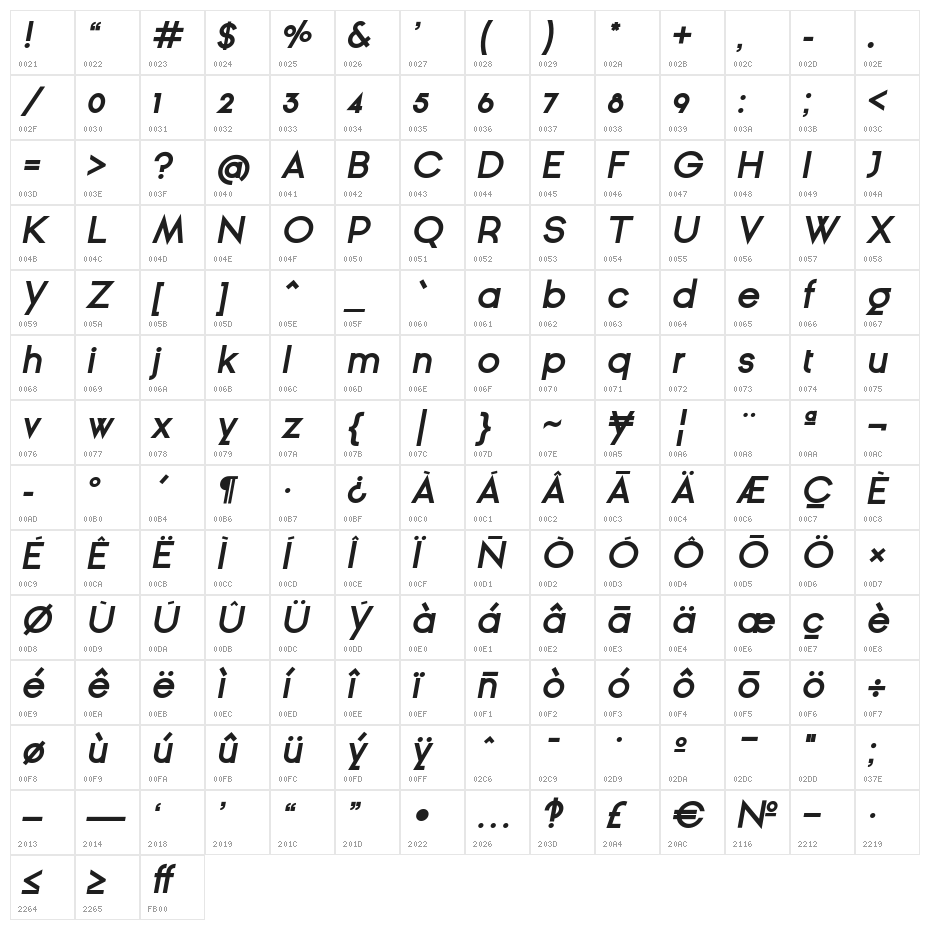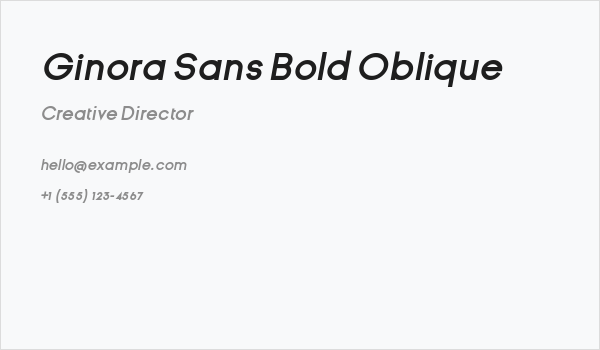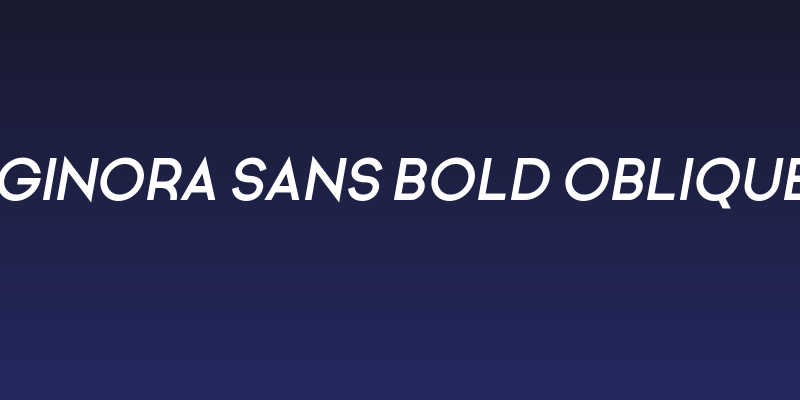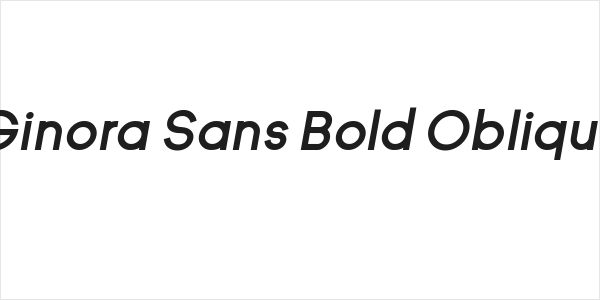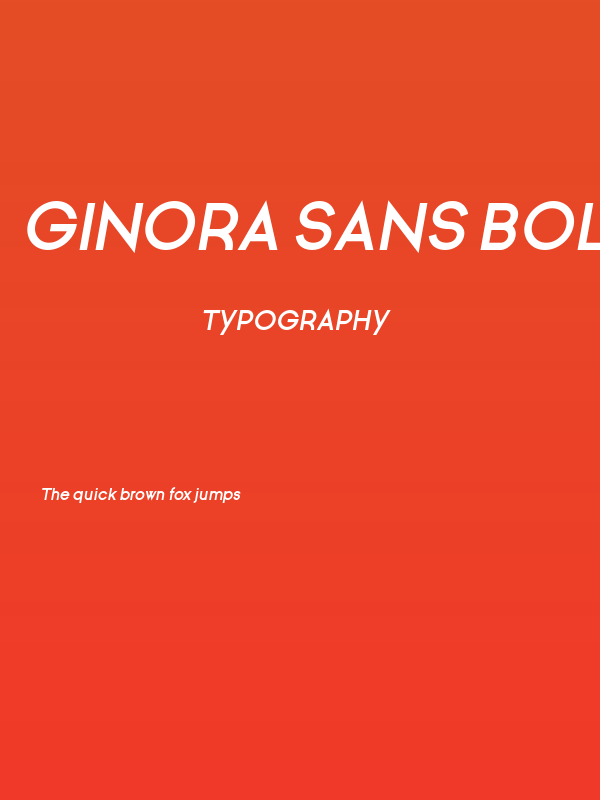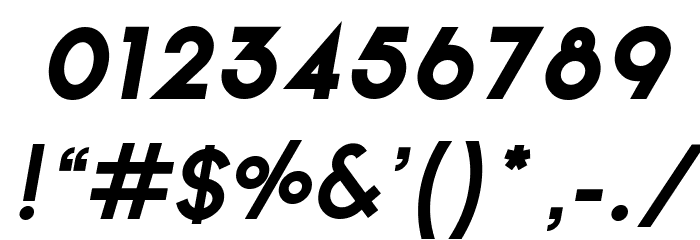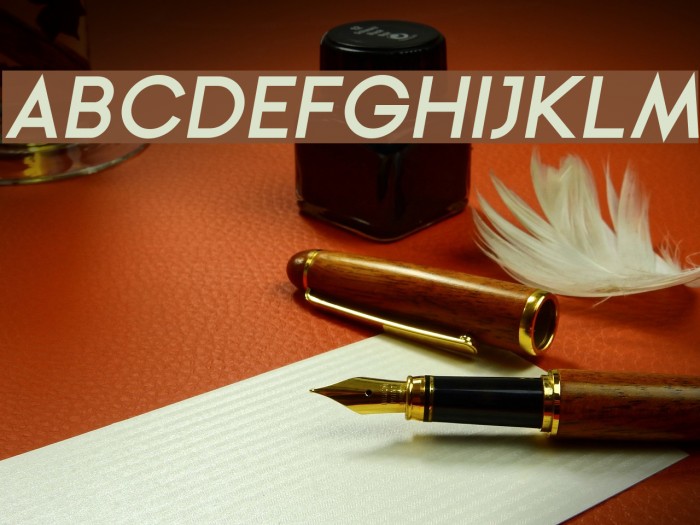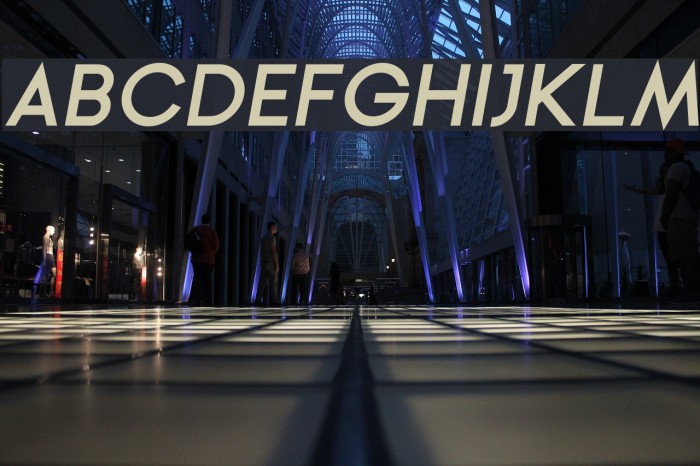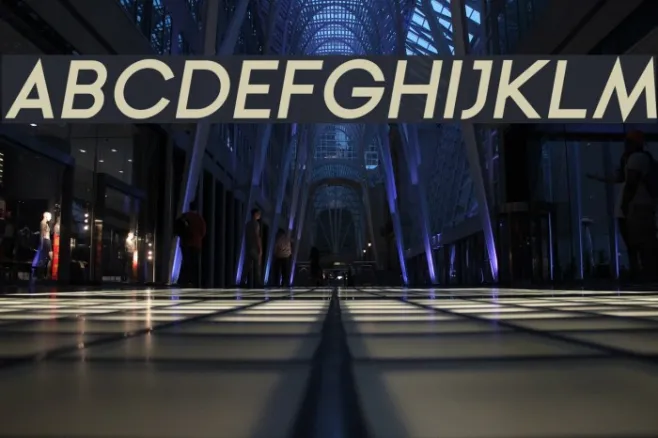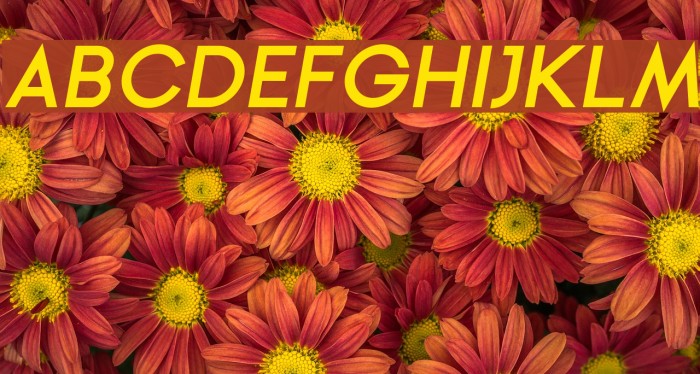
Ginora Sans Bold Oblique Font
Ginora Sans Bold Oblique Description
This font features a bold and oblique style, characterized by its clean and modern sans-serif design. The letters are slightly slanted, giving a dynamic and forward-moving appearance. The bold weight ensures strong visibility and impact, making it suitable for attention-grabbing headlines. The characters are evenly spaced with a normal width, providing a balanced and harmonious look. The numbers and special characters maintain the same bold and slanted style, ensuring consistency across all elements.
| Proposed Projects | Ideal for branding, advertising, and editorial design where a strong and modern presence is required. |